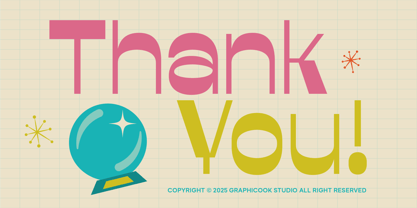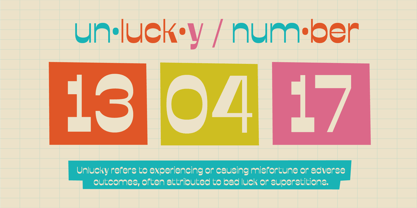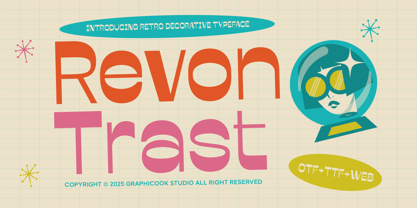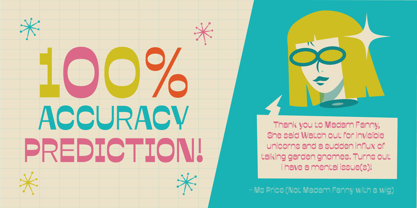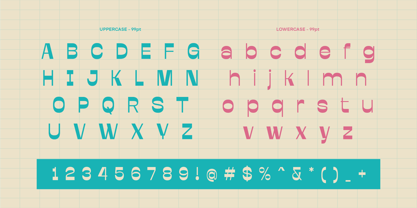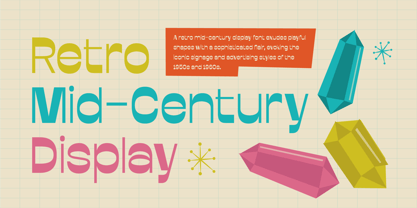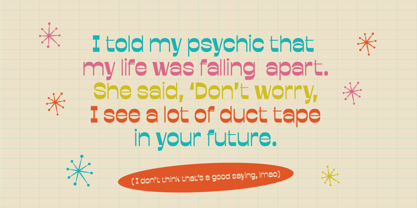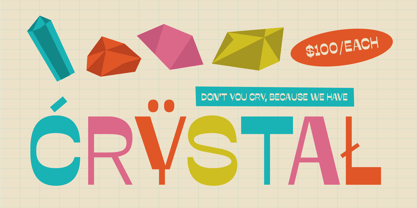
Cook Revontrast
The Cook Revontrast Font Family was designed by Gumilar Febriansyah and published by Graphicook Studio. Cook Revontrast contains 1 styles. More about this family
Introducing Revontrast, a reverse font that brings a retro, playful vibe to your designs. Perfect for packaging, posters, magazines, and more.
It is perfect for headlines, logotypes, magazines, packaging, quotes, movies, games, cover albums, book covers, and flyers, It's a perfect solution for creating eye-catching designs that stand out in any context.